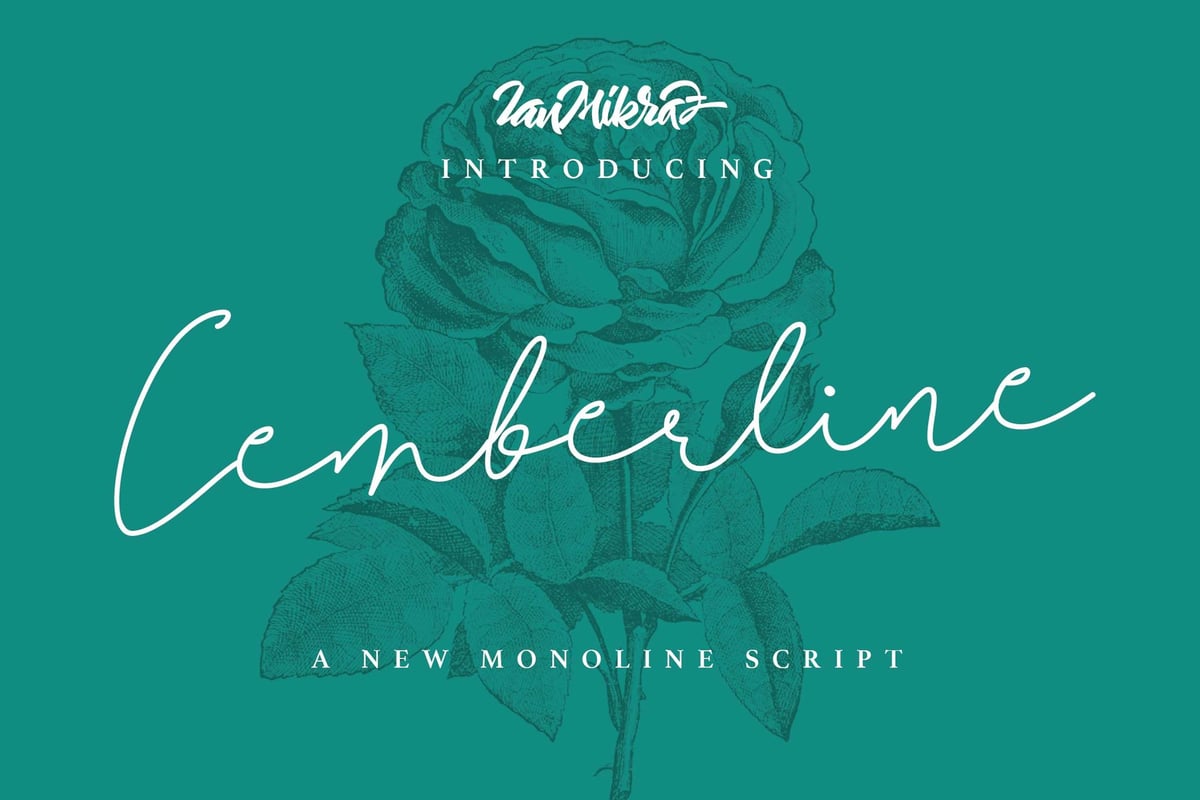
Cemberline Typeface
Cemberline is the monoline script font that blends timeless copperplate elegance with a modern, contemporary edge.
From Ianmikraz Studio, Cemberline Typeface is a beautifully crafted monoline script that bridges classic calligraphic tradition with fresh, contemporary style. Its clean, flowing lines carry a natural, personal touch — making it ideal for brands, packaging, stationery, and anything that calls for a refined, handcrafted feel.
Cemberline is a strong match for apparel branding, greeting cards, painted design styles, and any creative project that benefits from warmth and personality. Mix and match the alternate characters to craft layouts that feel truly one-of-a-kind.
Font Features:
- 224 glyphs total
- 32 alternate characters
- Standard ligatures
- Stylistic alternates
- OpenType features